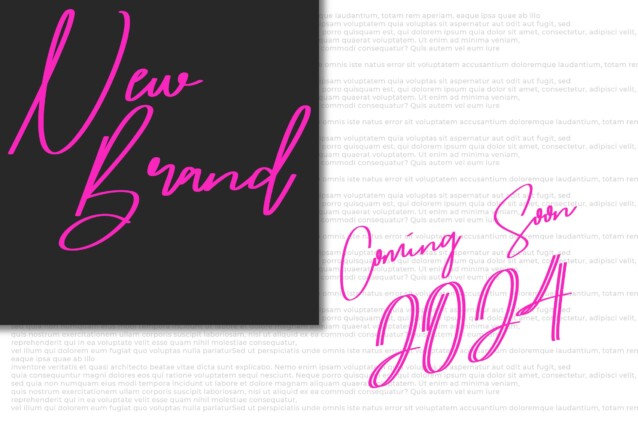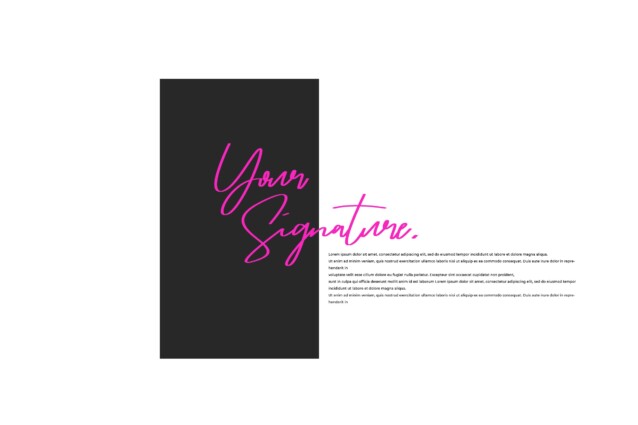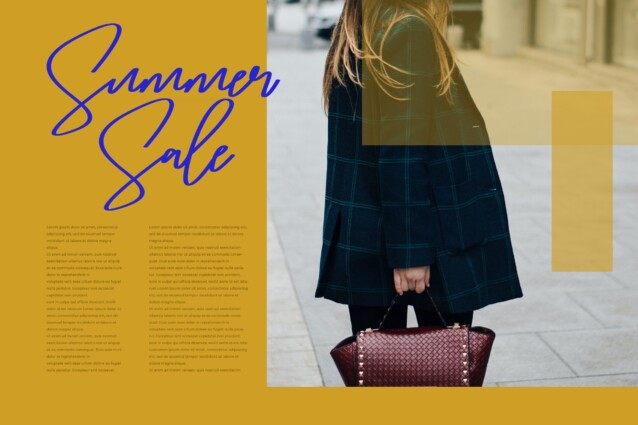
Helloyone Font is a beautiful handwritten font from jadatype that radiates stylish and sophisticated vibes. Suitable for tshirt, branding, social media, and so on. contains standard English letters, numbers, punctuation, and several accents that support multilingualism.